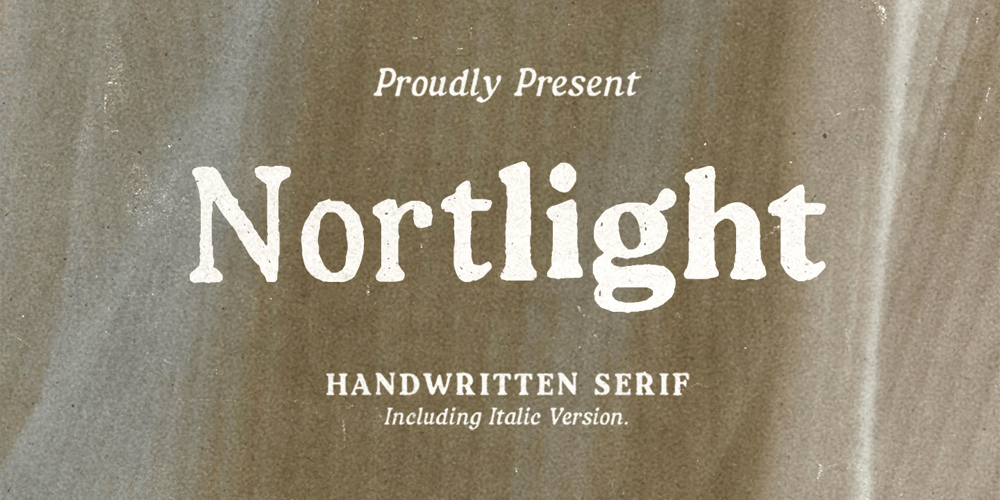
Nortlight Font Family was designed by Sarid Ezra, Liwa Shidqy and published by Bale Type. Nortlight contains 4 styles and family package options. Nortlight is a hand-lettered serif font family with handmade and natural rough looks. It’s perfect for projects that call for a handcrafted, organic feel. This font comes with Regular, Italic, Bold, Bold Italic, that you can use to make your presentations more appealing. Plus, it supports multi languages!Elegant Fonts